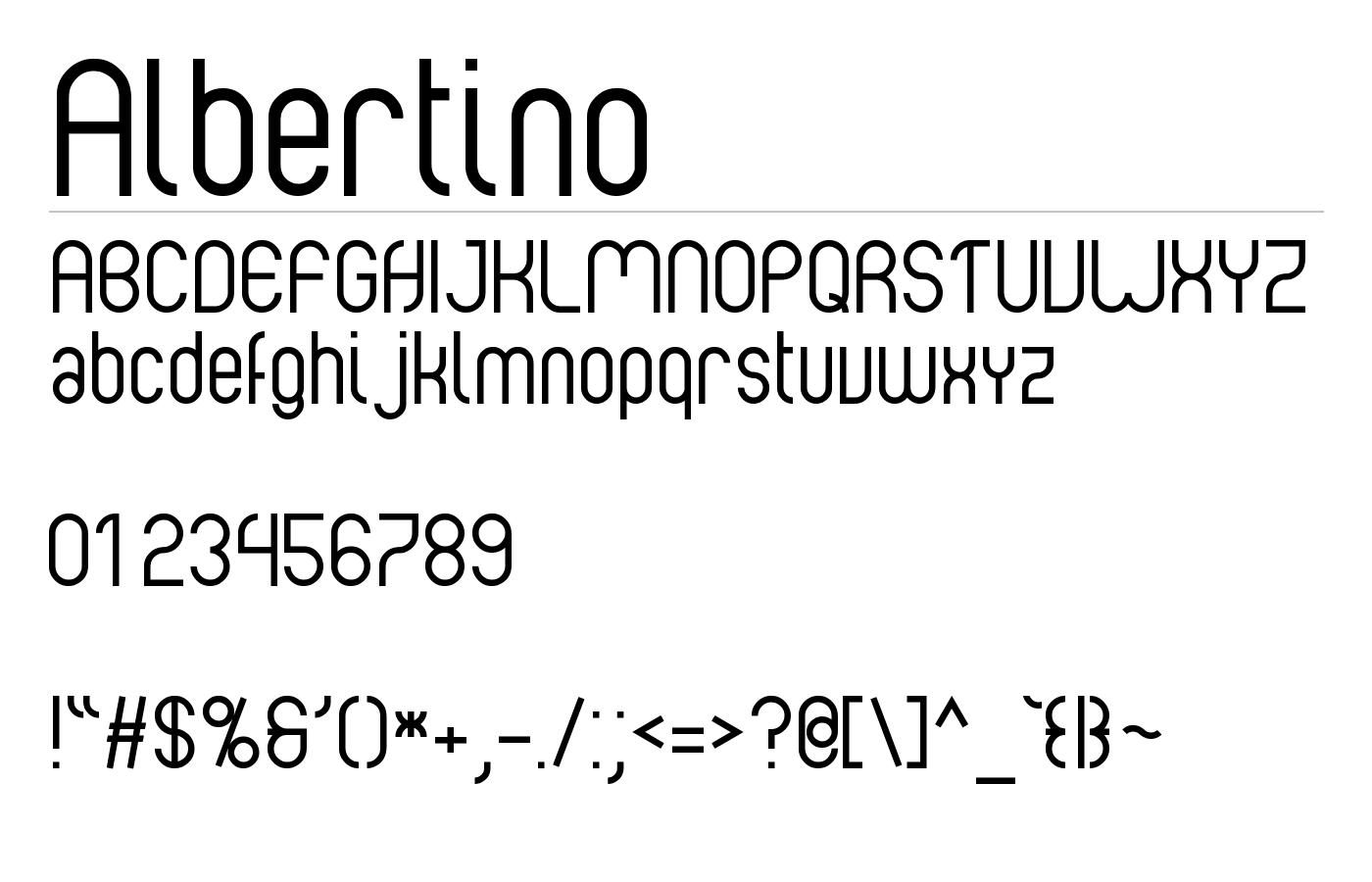
Albertino is a sleek, modern sans serif font with a light weight and narrow width, characterized by its tall, geometric letterforms and consistent stroke weight. Its clean, contemporary style with single-story 'a' and 'g' and subtle playful details makes it perfect for minimalist branding, editorial headlines, and digital interfaces where clarity and modernity are key. This font works well in designs that seek a refined yet approachable look with an emphasis on elegance and readability.
Albertino Font